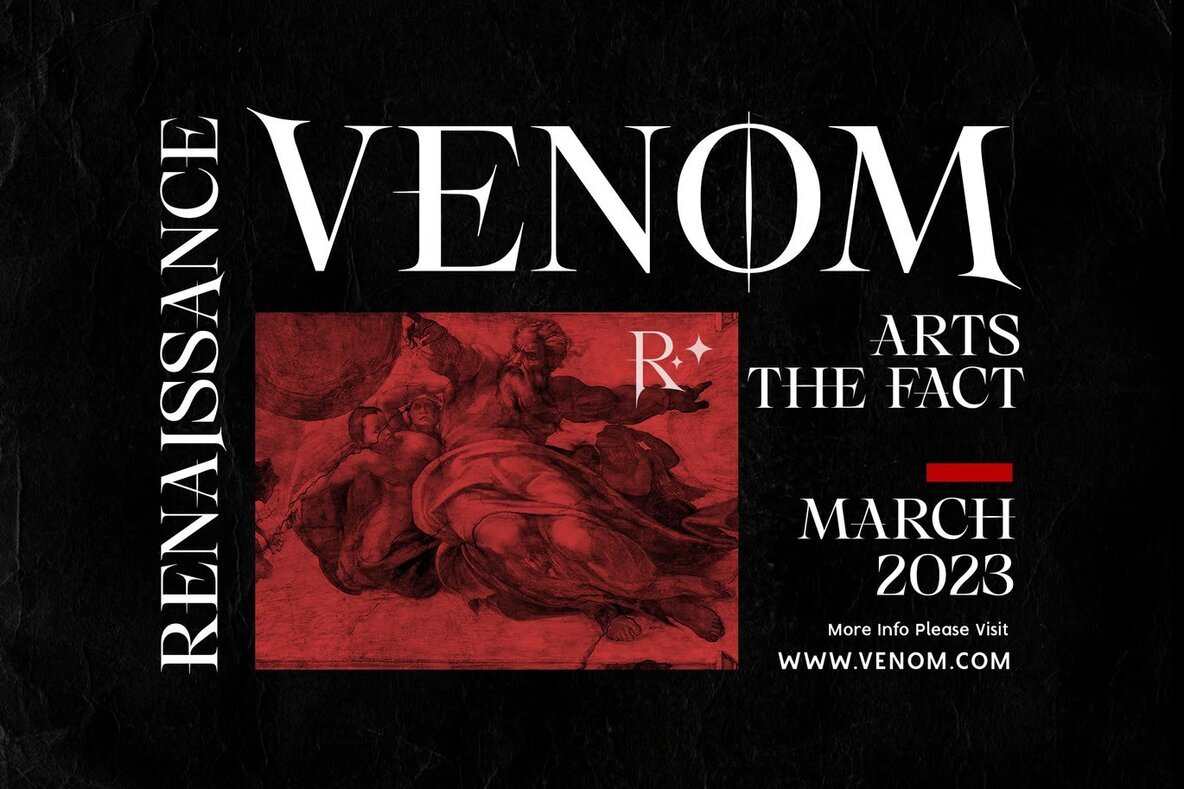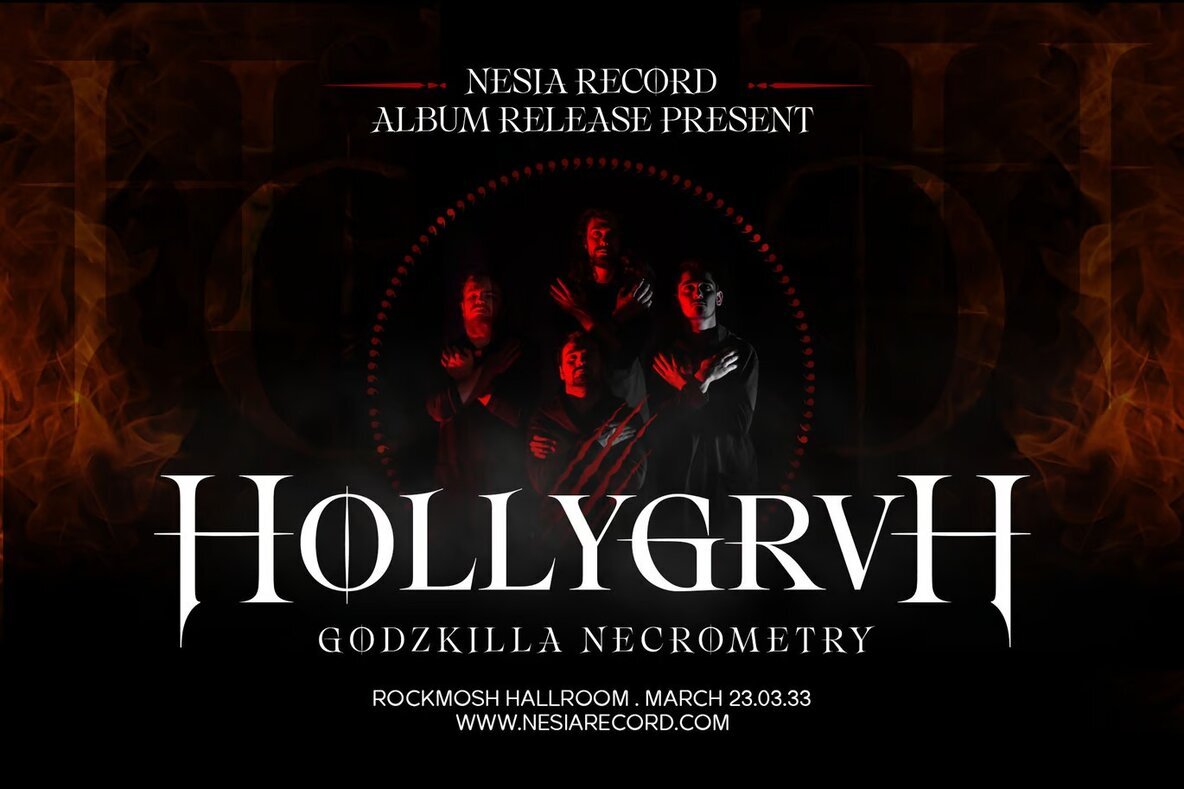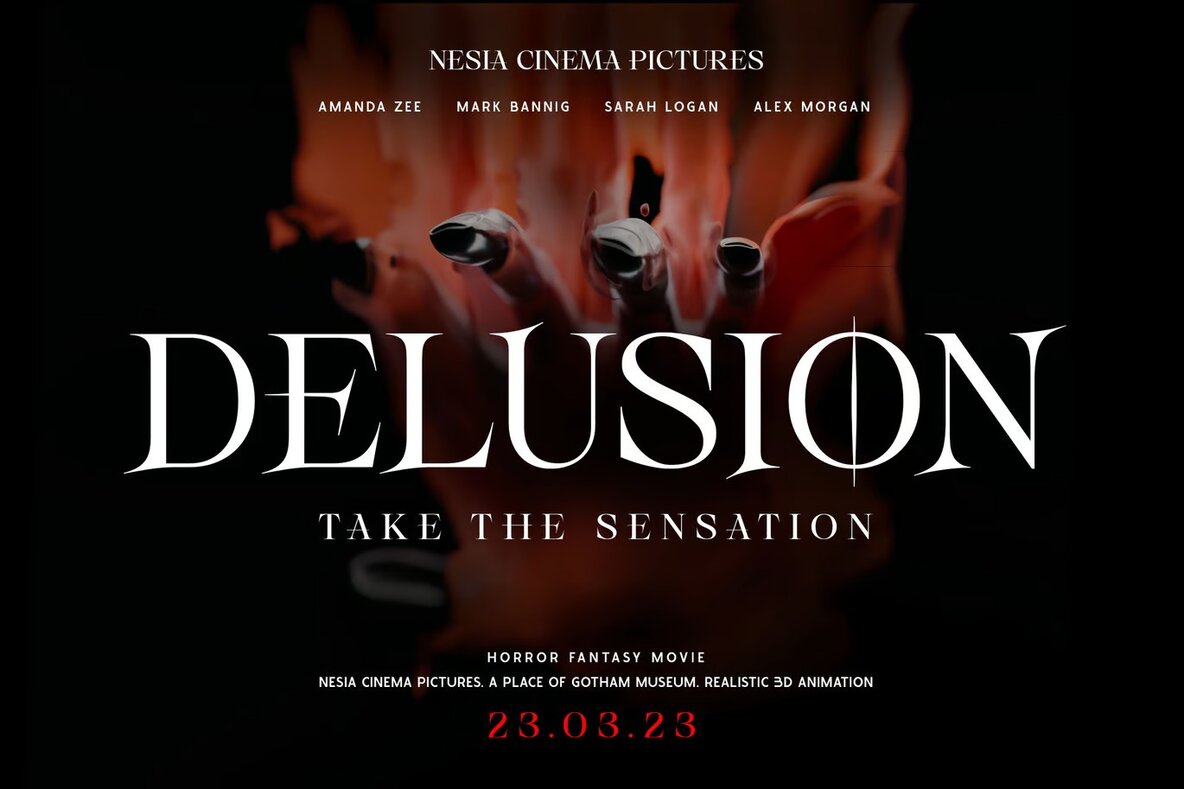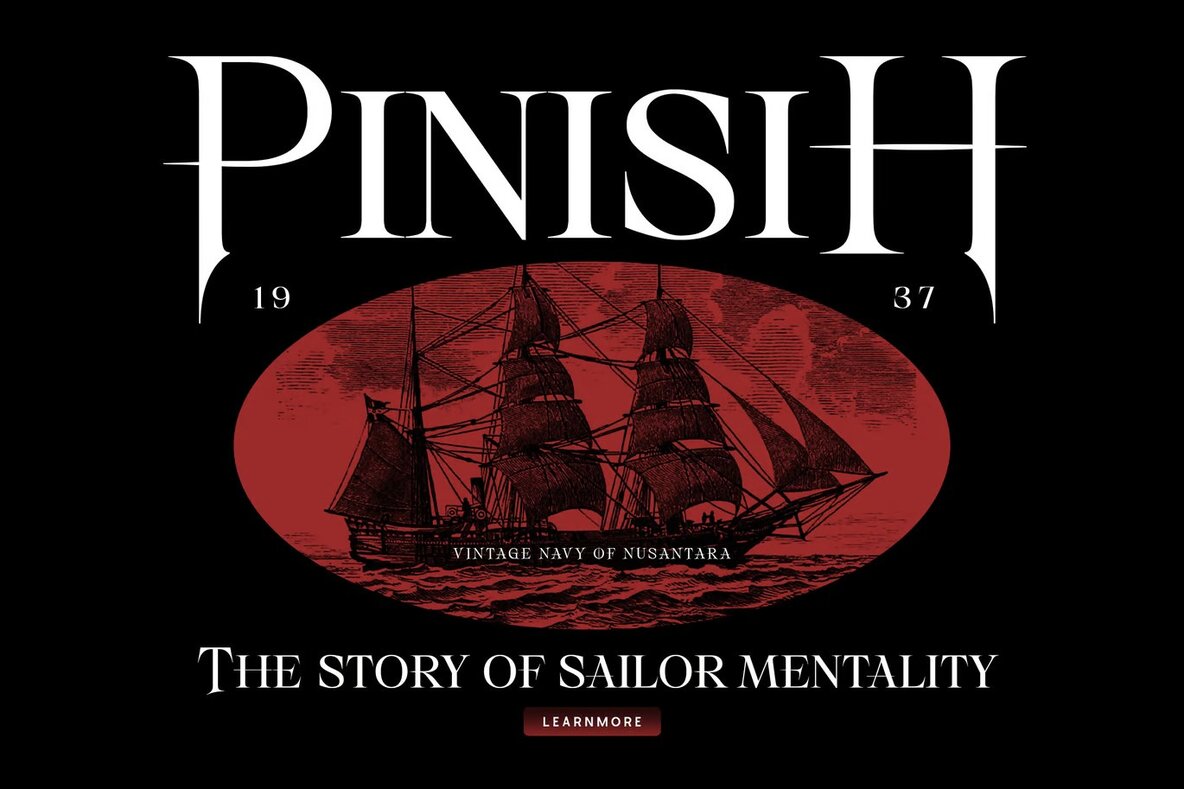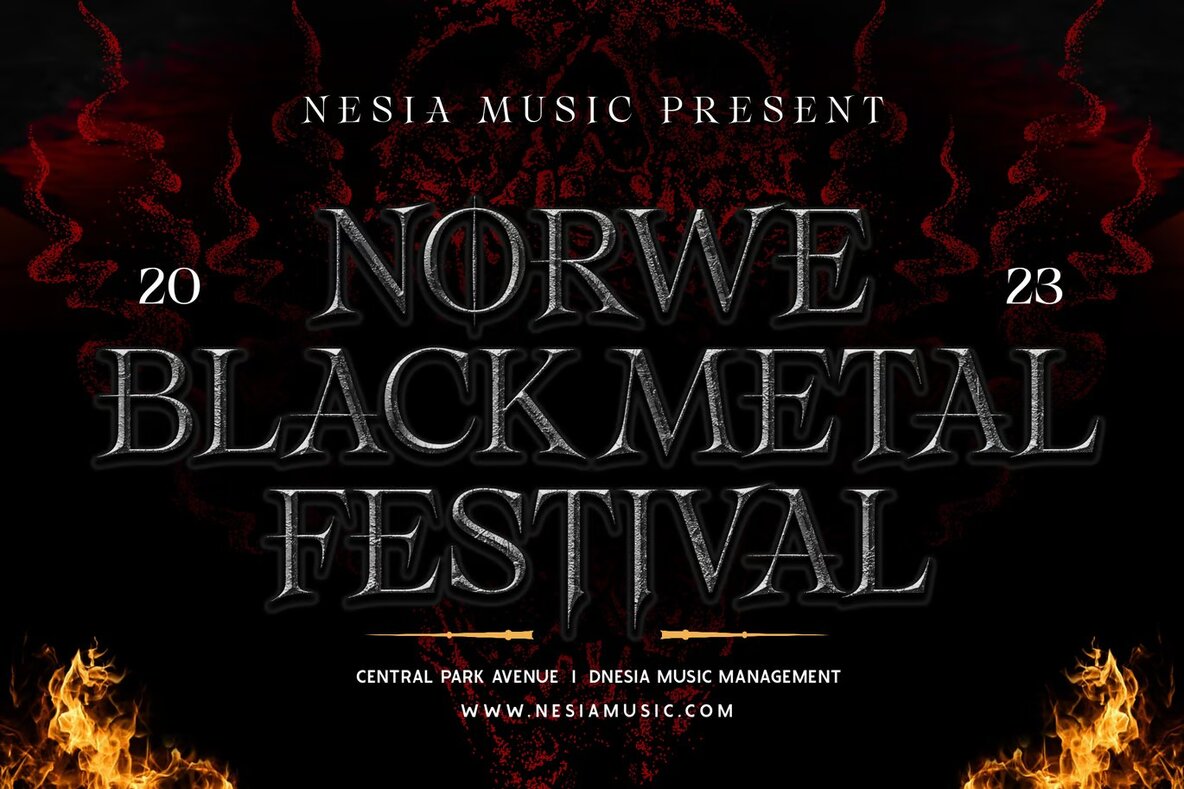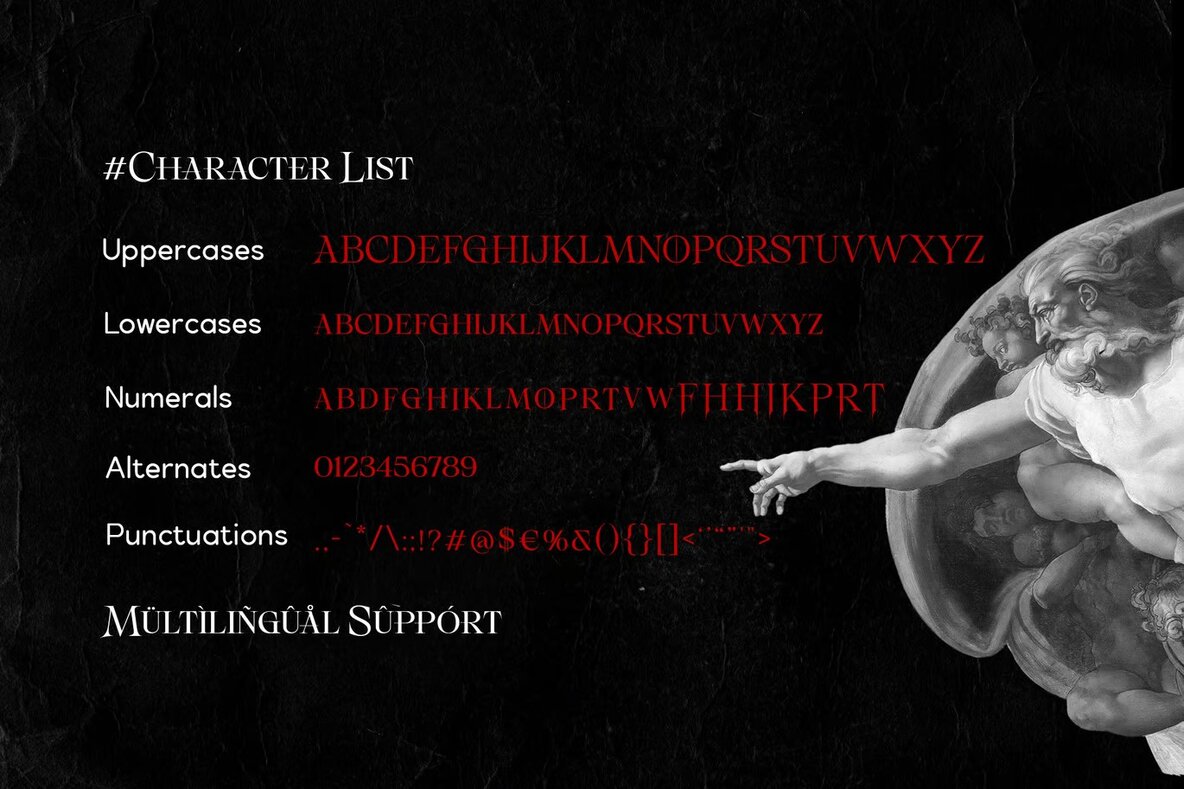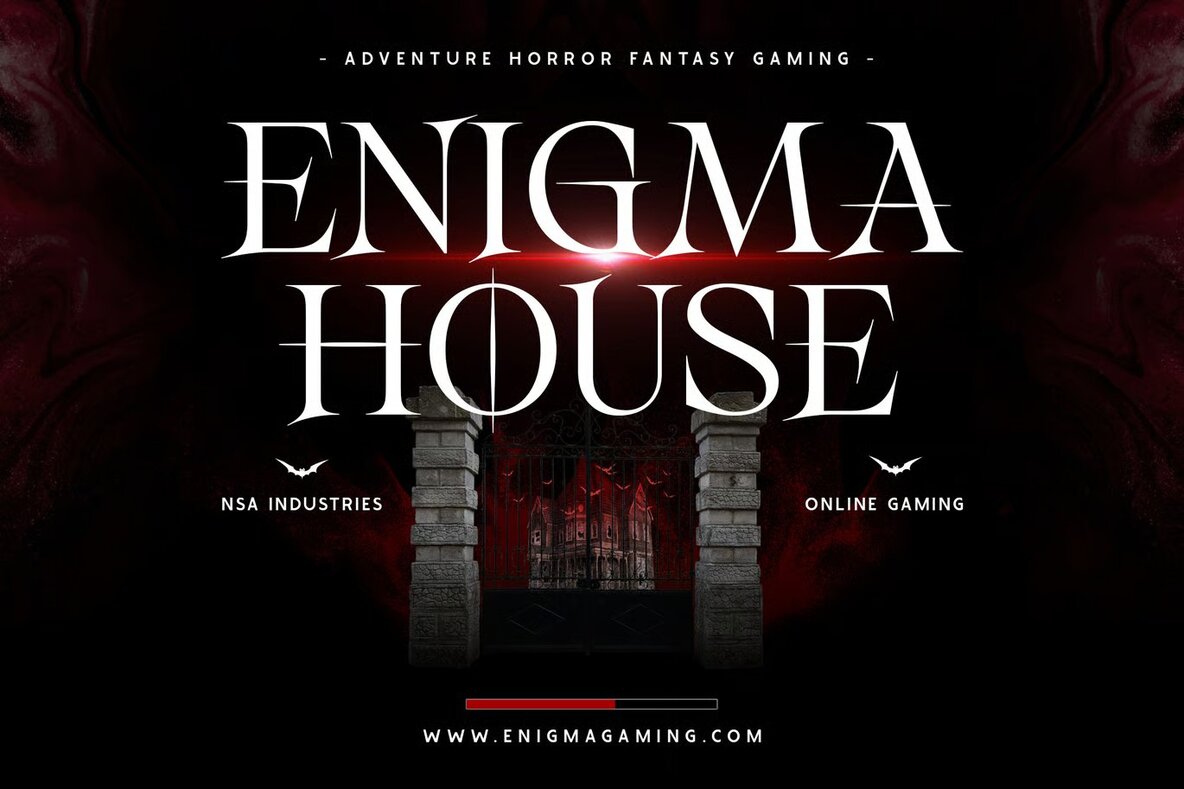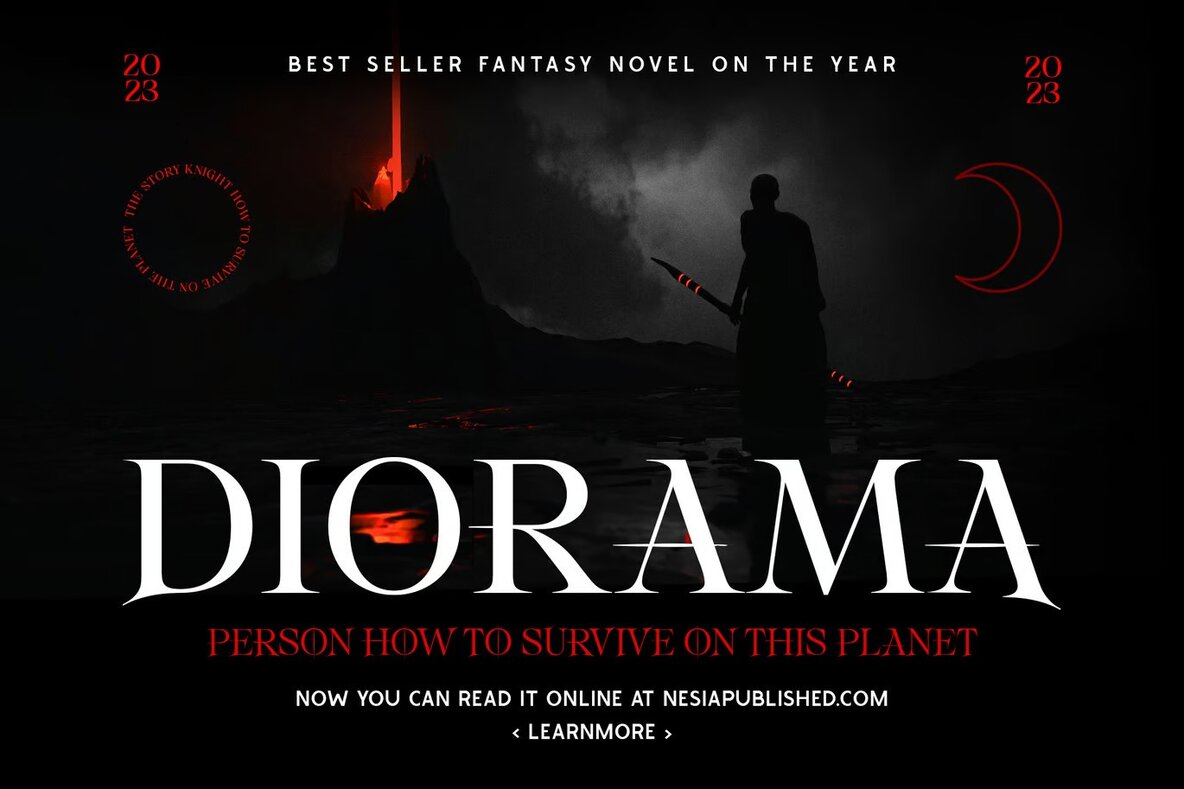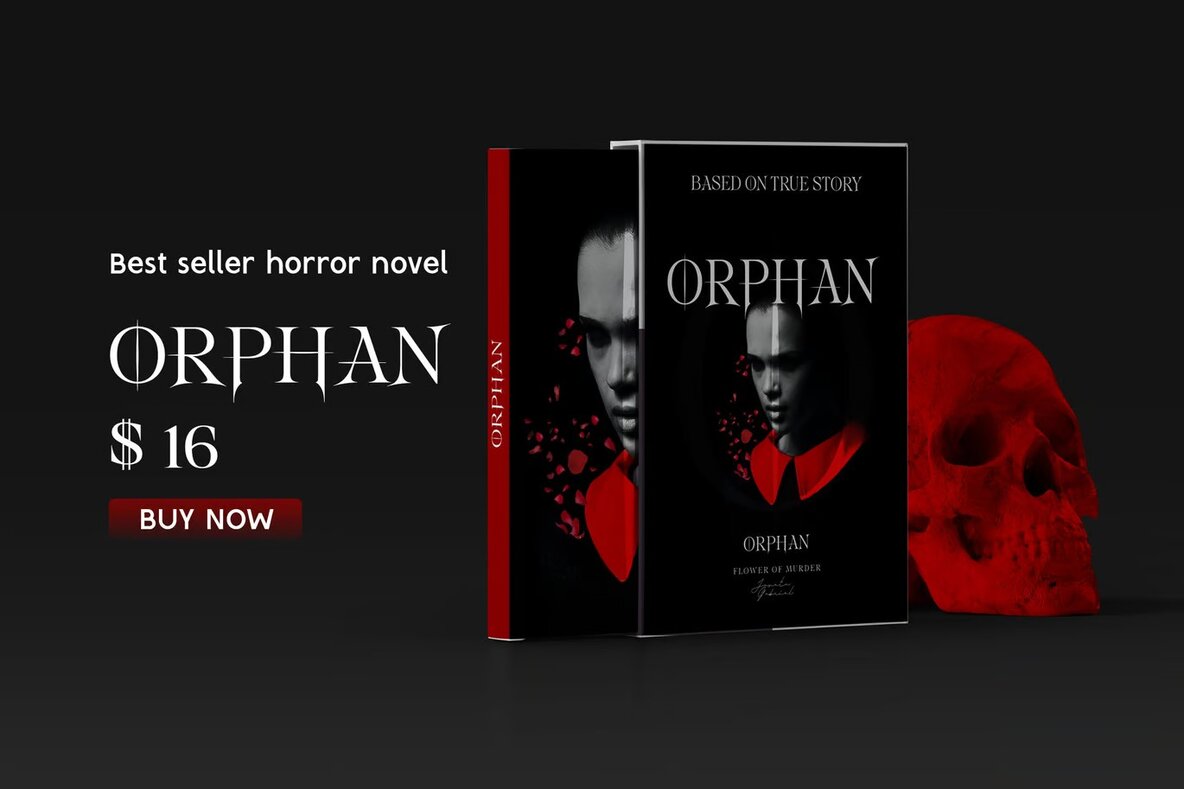
Rockmosh Font
Rockmosh Regular
Rockmosh is a versatile all-caps serif font that exudes a classic, magical, and horror-inspired vibe. Ideal for a wide array of projects, this font is perfect for creating standout logos, eye-catching branding, and impactful modern advertising designs. Whether you're working on a Halloween or gothic design, Rockmosh brings a unique touch to apparel, hardcore music graphics, and fantasy animations or movies. Its bold, oversized characters make it an excellent choice for adventure posters, game industry visuals, and music band branding.
In addition, Rockmosh is highly effective for book covers, editorial designs, and website or blog headers. The font's strong, distinctive style adds personality to custom mugs, pillows, T-shirts, and any project requiring a gothic hand-lettered aesthetic. Use Rockmosh to give your designs an adventurous, fantasy-driven edge that's sure to captivate and engage your audience.